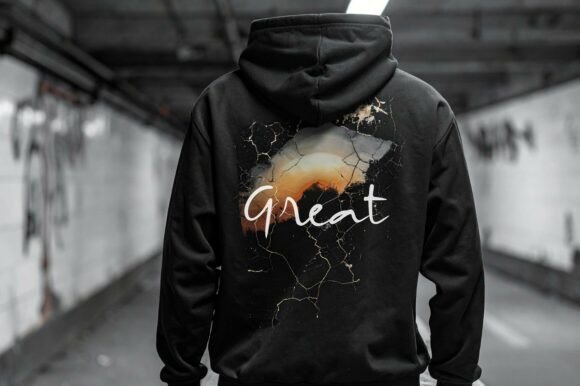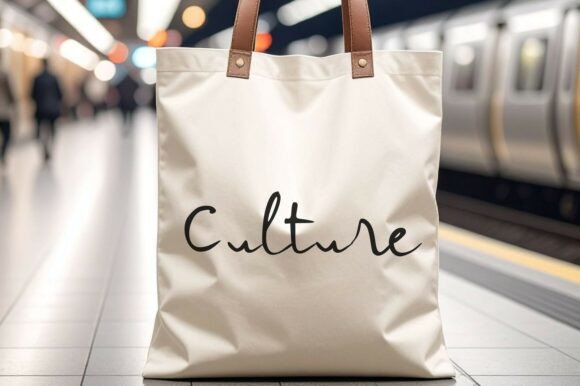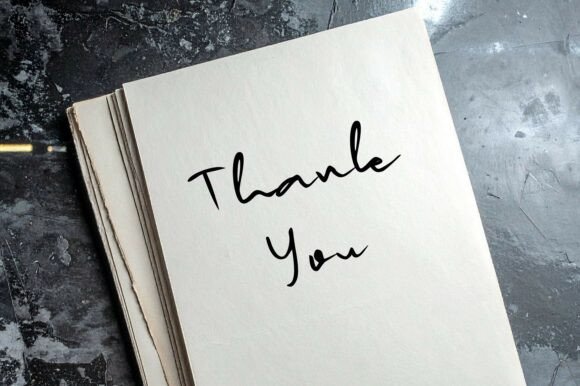
Unlocking the Art of Elegance with Castillo Signature Font
Have you ever found yourself staring at a blank page, desperately seeking the perfect font to bring your creative vision to life? We’ve all been there, struggling to find that elusive spark that sets our designs apart from the rest. For designers and artists, the quest for the perfect font can be a daunting task, but what if we told you that the answer lies in the majestic elegance of the Castillo Signature Font?
This remarkable script font is more than just a tool for adding a touch of sophistication to your designs – it’s an experience that elevates your creations to new heights. With its genuine handwritten feel and natural, fluidic movements, the Castillo Signature Font is the perfect choice for designers seeking to radiate a sense of luxurious assertiveness and leave a lasting impression.
Castillo Signature Font Key Features
- Font Style: A luxurious and elegant script font, ideal for signature designs, invitations, and formal documents.
- Unique Characteristics: The font features intricate connections, subtle flair, and elegant strokes, giving it a sophisticated and high-end look.
Castillo Signature Font Review
I recently had the chance to work with the Castillo Signature Font, and I must say it’s a unique addition to any design project. ✨ The font’s elegant and sophisticated feel makes it perfect for creating a luxurious or high-end brand identity.
- The font’s beautiful script strokes and refined letterforms give it a touch of class and sophistication.
- The large character set and extended language support make it a great choice for projects that require a wide range of languages and characters.
- The font’s versatility allows it to be used in a variety of applications, from logos and branding to packaging and signage.
However, there are a few limitations to consider. ⚠️ The font may not be the best choice for projects that require a more modern or edgy feel, as it’s on the more traditional side. Additionally, the font’s script strokes can sometimes make it difficult to read at very small font sizes.
Overall, I think the Castillo Signature Font is a great choice for designers who want to create a high-end or luxurious brand identity. While it may not be the best fit for every project, it’s definitely worth considering for the right type of design.
The Castillo Signature Font is ideal for creating elegant and sophisticated designs, making it perfect for wedding invitations, business cards, and personal stationery.
Use it to add a touch of luxury to your designs and make a lasting impression.